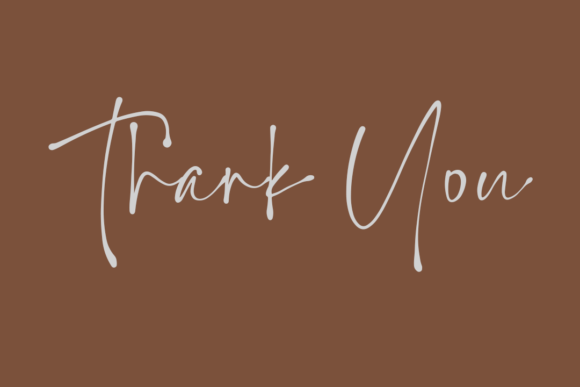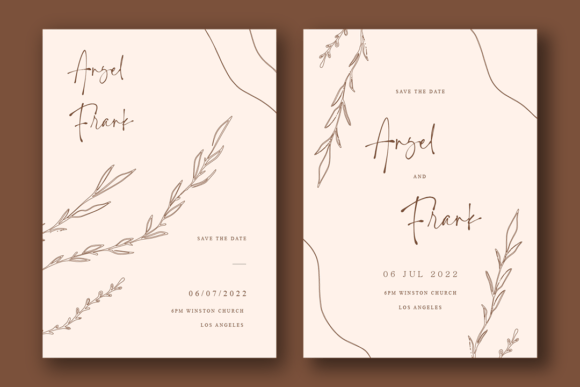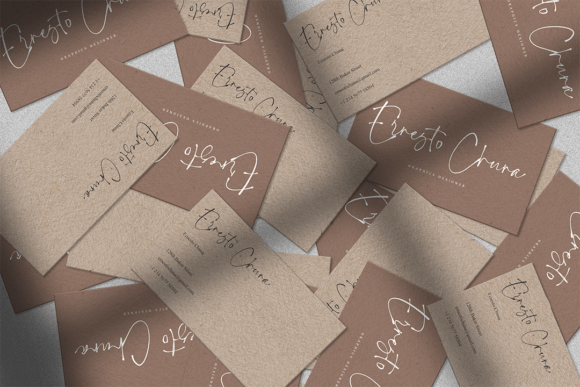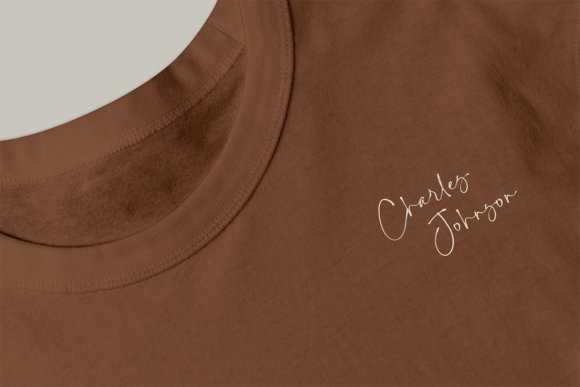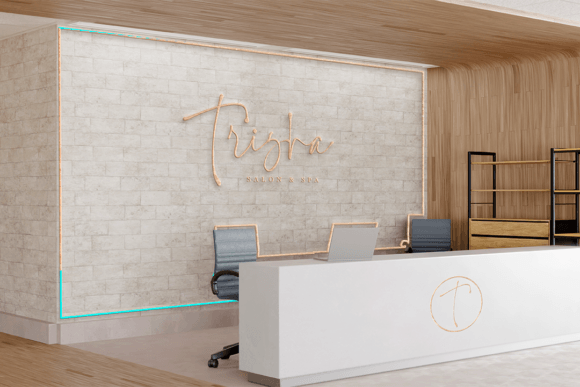
About Blaster Font
Blaster Font is a sophisticated and organic handwritten typeface that brings a sense of authenticity and elegance to any creative project. With smooth, natural strokes on every glyph, this font captures the beauty of real handwriting—making it perfect for designers who want their work to feel warm, personal, and high-end. If you’re looking for a font that adds character without sacrificing professionalism, the Blaster font download is the ideal choice.
Elegant Handwritten Style with Natural Flow
Blaster was crafted to mimic the subtle imperfections and fluidity of actual handwriting. Each letter features a graceful, flowing structure with gentle curves, allowing your text to appear natural yet refined. This combination of elegance and realism makes it perfect for standout titles, signature-style branding, and romantic design elements.
From the first glance, Blaster adds a handcrafted charm to your design—an excellent match for creative professionals and hobbyists alike who want to bring a personal feel to their visual communication.
Perfect for a Wide Range of Projects
Thanks to its versatile letterforms, Blaster font download can be used across a wide variety of applications:
Logo design – Create a stylish, memorable brand identity.
Wedding invitations – Add a romantic, handwritten elegance.
Stationery & business cards – Keep your brand classy yet approachable.
Mockups & packaging – Showcase products with a personal touch.
Social media graphics – Stand out with an aesthetic and modern script.
Quotes & overlays – Combine visual beauty with meaningful text.
Whether you’re designing a custom greeting card or a premium packaging label, this font will elevate the visual impact of your work.
Its smooth lines and clean spacing mean you’ll get excellent legibility even at smaller sizes, while maintaining elegance in large headlines or print layouts.
Why Choose the Blaster Font?
Unlike generic handwritten fonts, Blaster emphasizes organic expression while staying visually cohesive. This makes it an excellent choice for artists, small business owners, wedding planners, and content creators who want their materials to reflect authenticity and artistic quality.
By choosing the Blaster font download, you’re not just getting a stylish typeface—you’re adding a touch of personality that turns basic text into memorable design.
Blaster Font stands out as a timeless handwritten script that feels fresh, expressive, and professional. Its natural pen-stroke detail is subtle yet powerful, helping your designs leave a lasting impression. Whether you’re designing for print, digital, or events, this font adds the graceful finishing touch your work deserves.